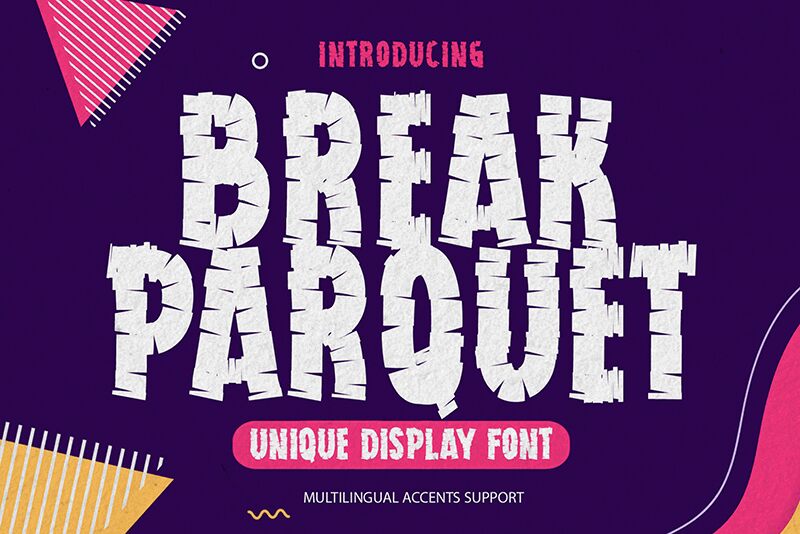
Break Parquet
Break Parquet captivates with its bold, decorative style that transforms simple text into an eye-catching visual experience. Designed by Gassstype, this font exudes a striking presence through its condensed form, allowing it to stand out boldly on any canvas. The playful yet edgy character shapes create a dynamic sense of movement, enhanced by unique textures that add depth and intrigue.
Ideal for expressive headlines or standout logos, Break Parquet infuses energy into branding materials, posters, and creative projects. Its commanding aesthetic not only captures attention but also conveys a sense of modernity and artistic flair. Whether used in print or digital design, this font’s distinctive charm makes it a perfect choice for those seeking to make a memorable impact.